Fonts can change the vibe of your magazine design. Whether you’re going for something bold, classy, or just a little different, picking the right magazine fonts helps your layout stand out and feel more polished. From clean serifs to wild brush strokes, the right typeface draws readers in. In this article, you’ll find 20 cool magazine fonts to try in your next project.
Best Magazine Fonts to Elevate Your Editorial Design
1. Rustic Roadway
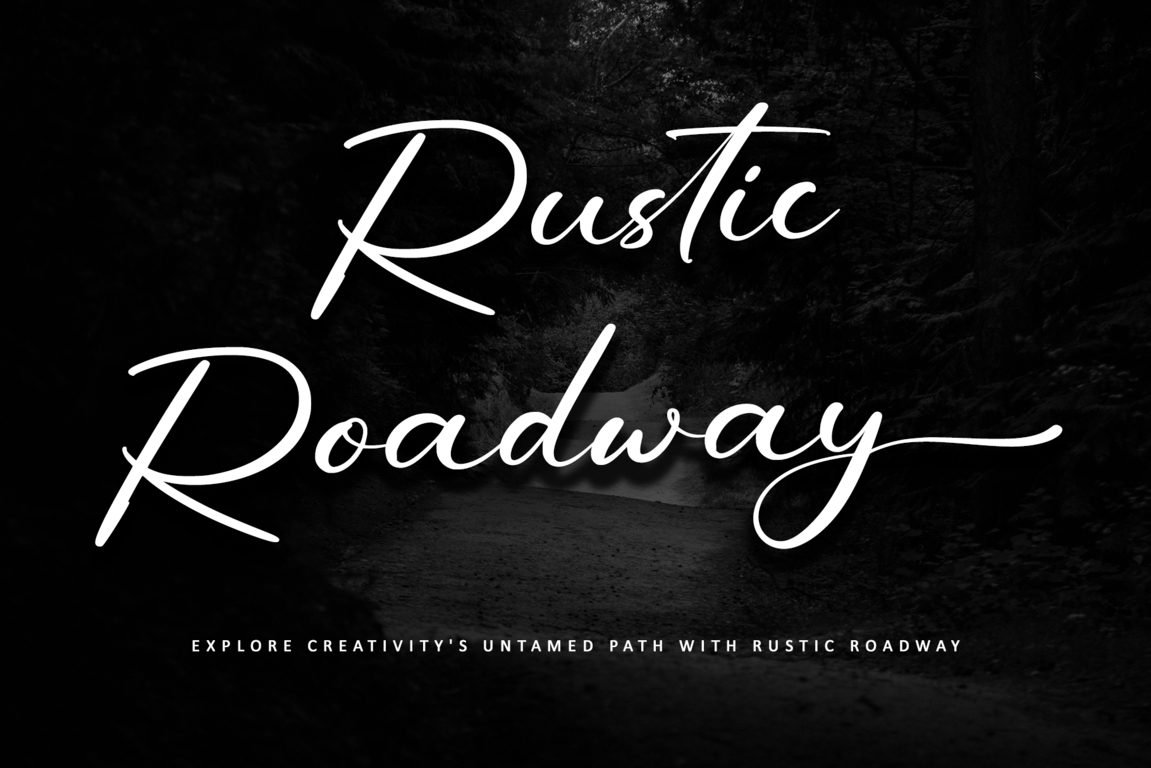
This font mixes elegance with a playful twist to bring a cozy, down-to-earth feel to your layout design by giving an extra spark of personality and style.
2. Higher Jump
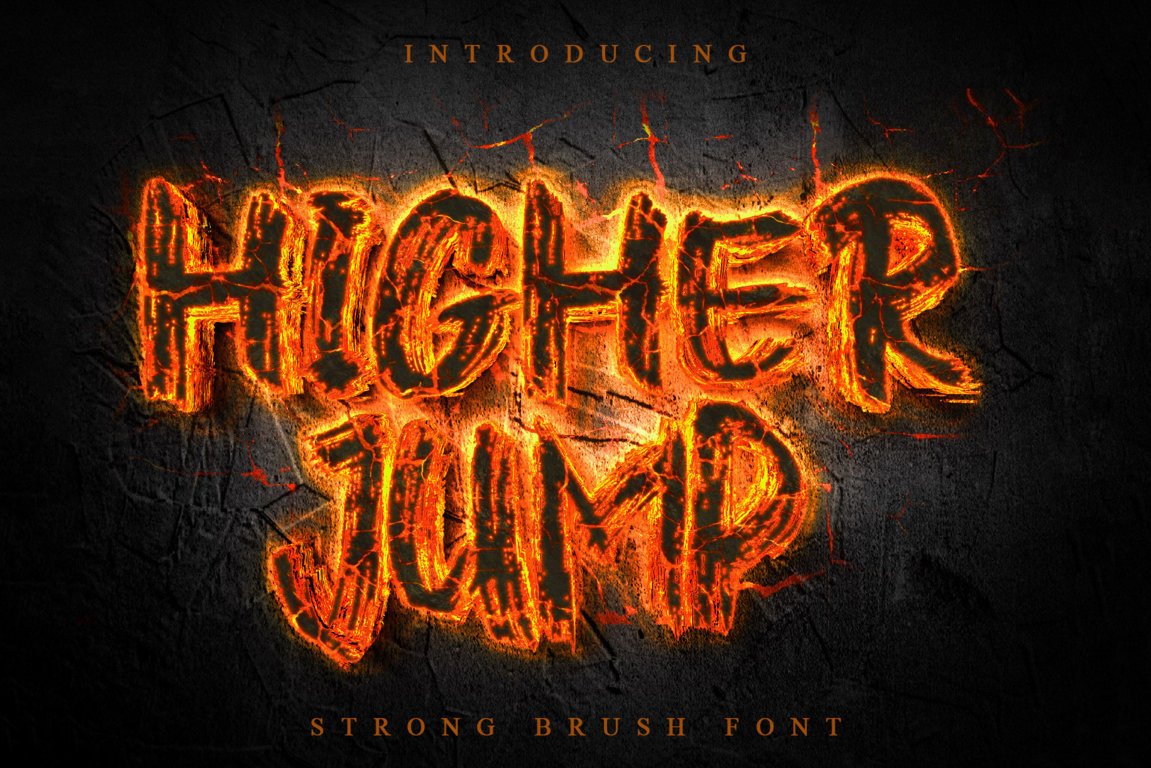
Higher Jump is a dry brush font full of personality that is perfect for making a strong first impression in magazine layouts. This font is full of character, whether you’re designing eye-catching headlines or bold section titles.
3. Eagle Horizon
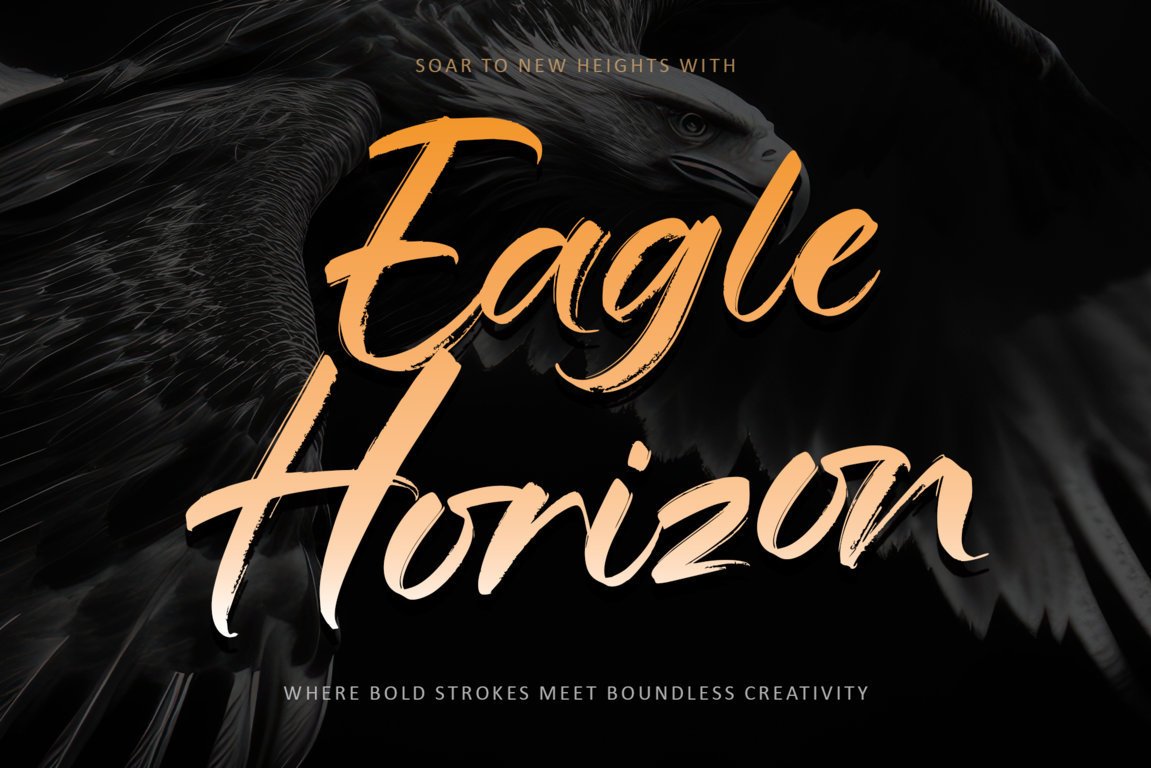
Let’s stand out with a striking headline or a stylish feature title. Featuring strong, flowing strokes and a textured feel, it brings a perfect mix of energy and elegance to your designs.
4. Laris Manis
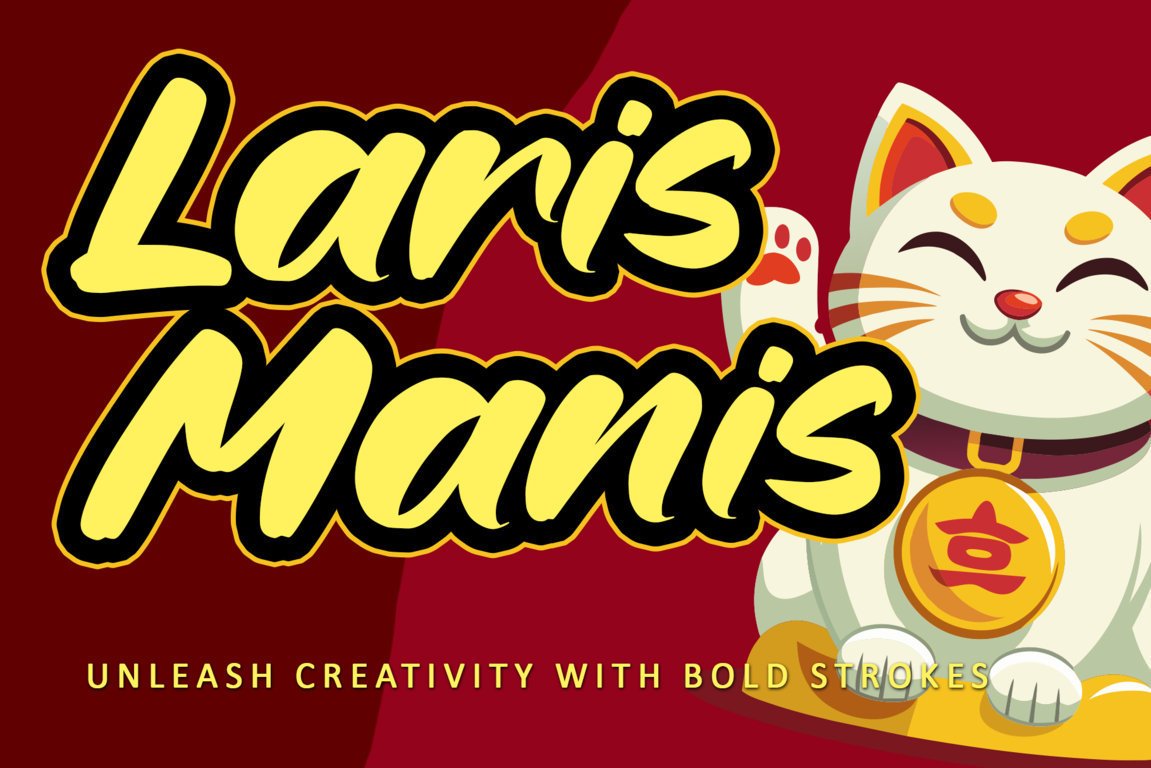
Its casual charm gives it a warm and playful feel that’s super easy to read. Whether you’re layering it over busy backgrounds or using it as a standout headline, this font stays clear, stylish, and effortlessly versatile in any layout.
5. Onestrike
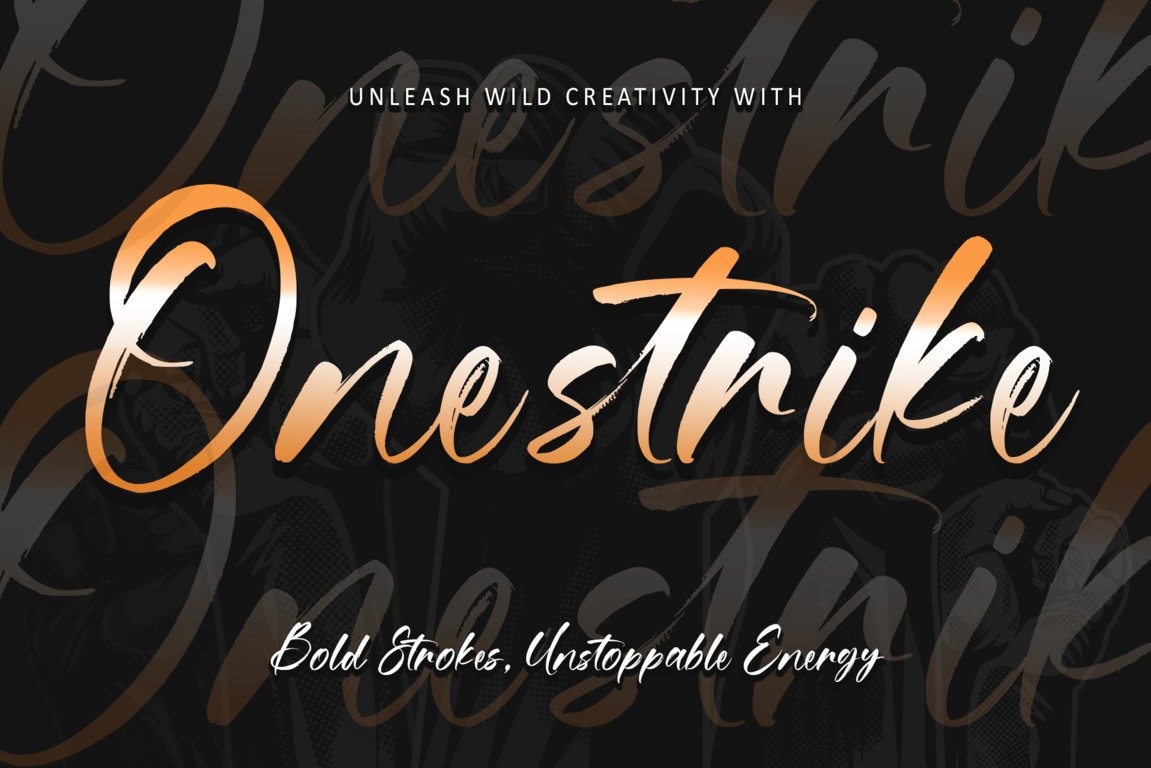
With its expressive letterforms and dynamic strokes, Onestrike captures motion, strength, and serious attitude. It’s a perfect fit for magazine fonts that are ideal for bold headlines, edgy layouts, or cover titles that leave a lasting impression.
6. Reality Stone
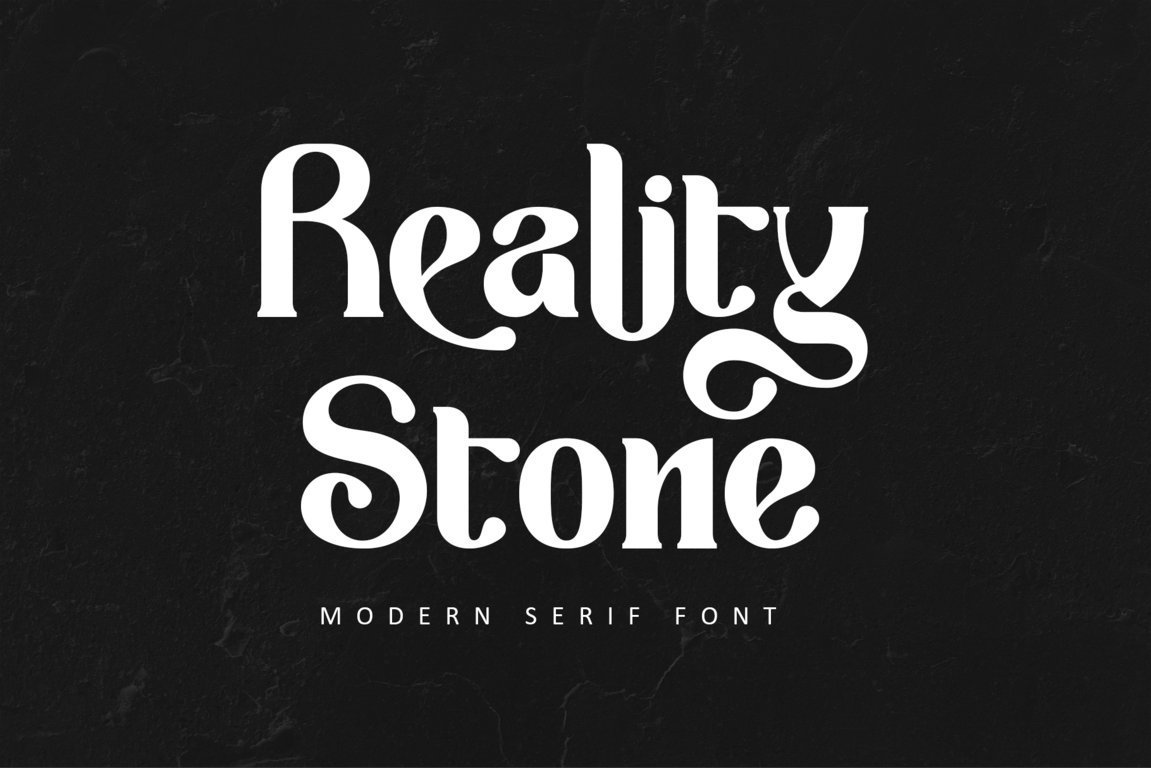
It brings strong, confident letterforms that add a bold, professional touch by keeping things sharp and stylish. With a blend of strength and elegance, it helps your headlines and pages leave a lasting impression.
7. Ramadan Blessing
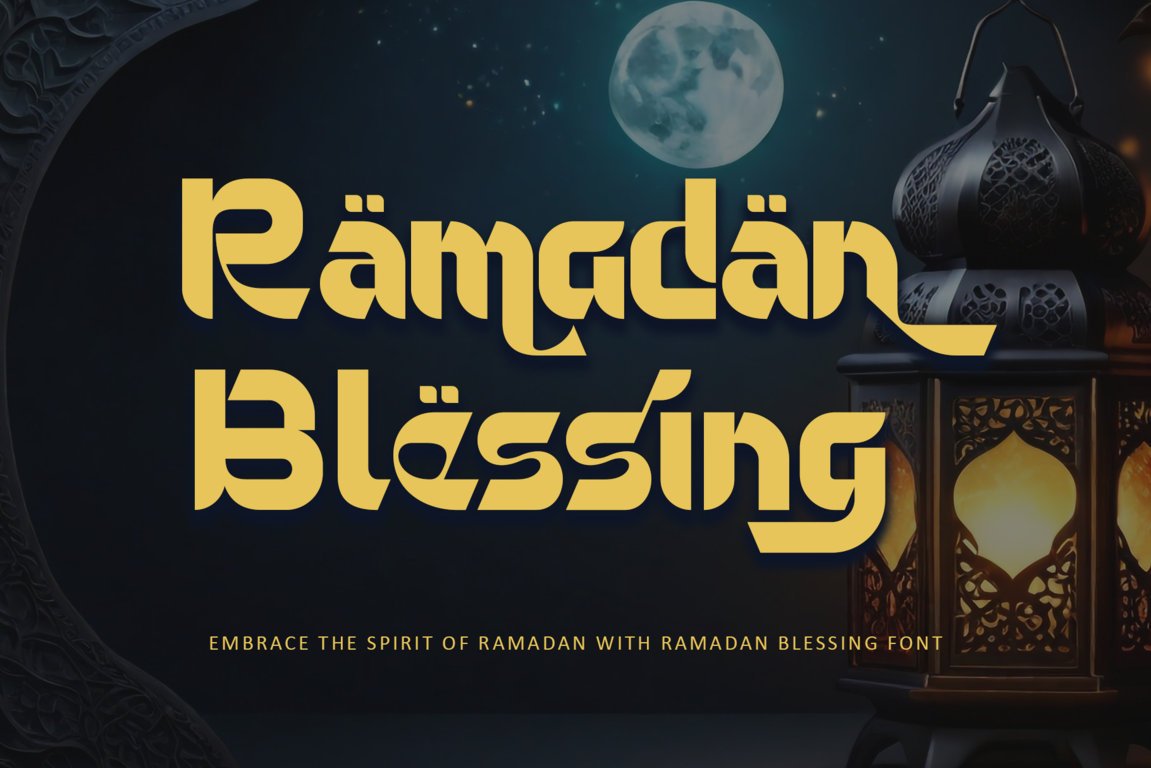
Working on an Islamic-themed project or magazine layout? Ramadan Blessing is the perfect font to bring that authentic touch. It elegantly reflects the essence of the holy month with its distinct Arabic-inspired lettering and simple serif design.
8. Batik Worldwide
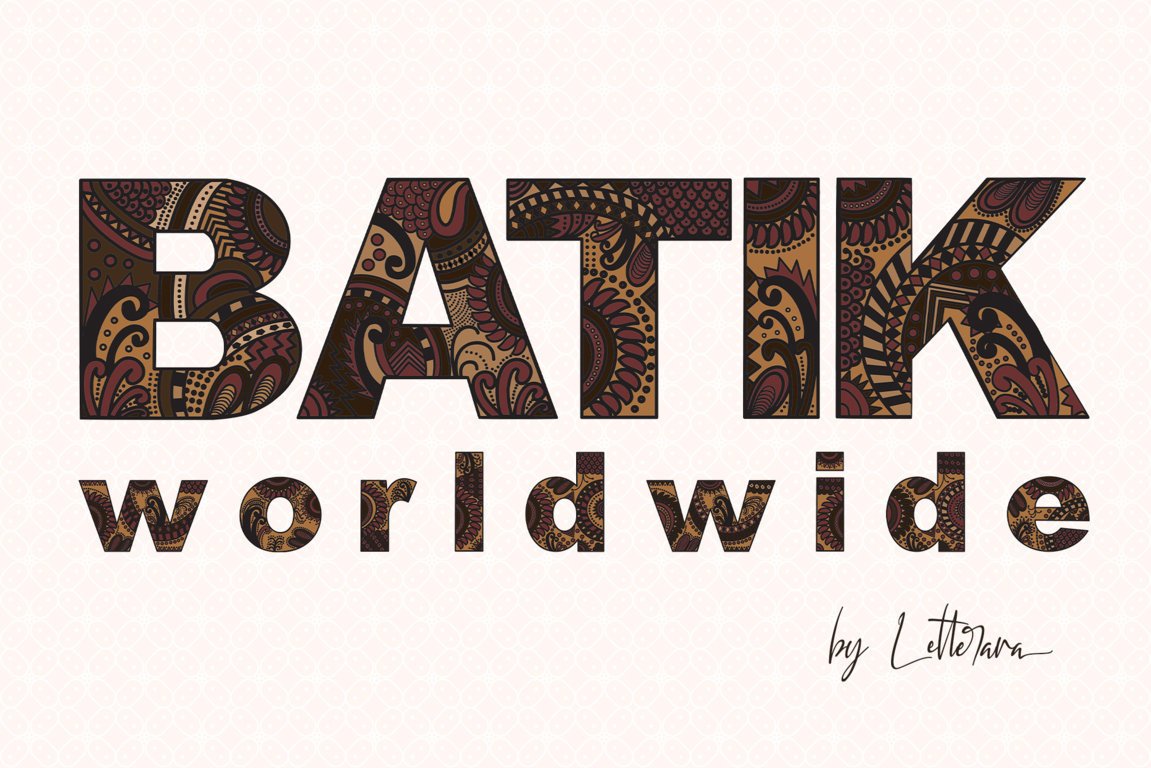
Batik Worldwide is a clean sans-serif font with a unique Batik-inspired style that adds a fresh, luxurious touch to any design. It’s easy to use and looks great in color to make headlines, covers, or stylish layouts.
9. Aishiteru
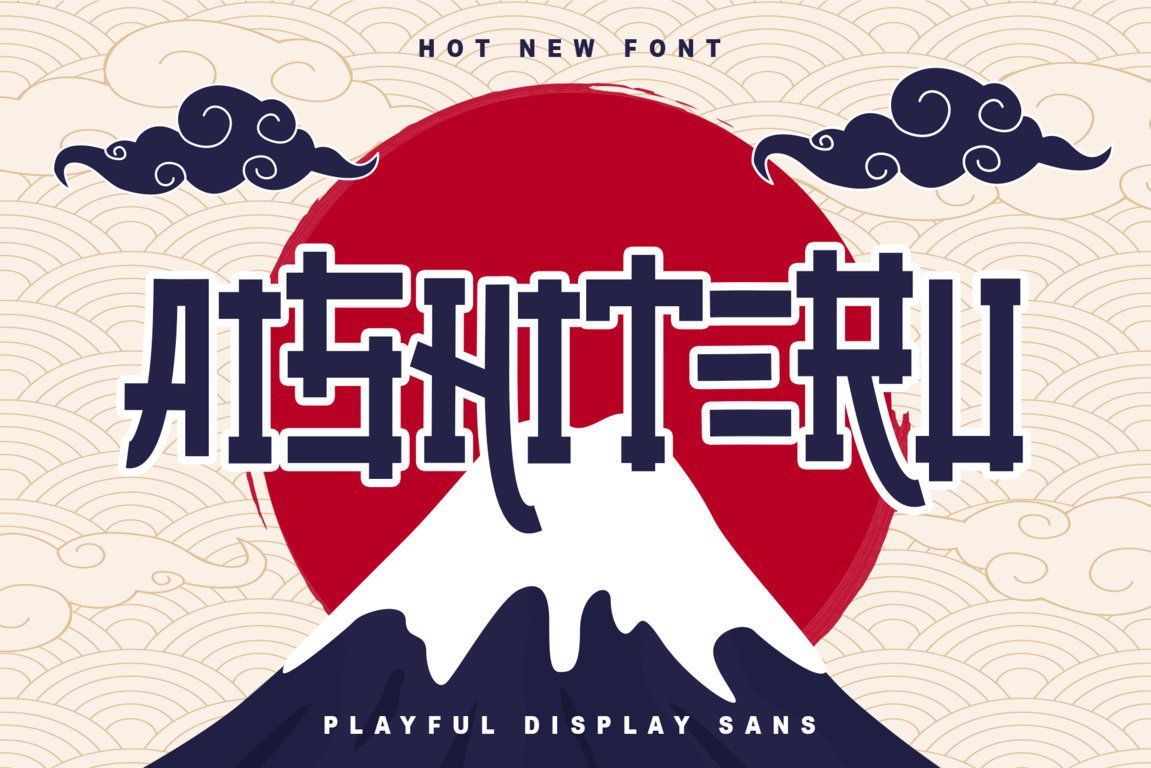
If you’re after something eye-catching, Aisiteru is one of the best magazine fonts to add a bold, modern vibe to your pages. Inspired by classic Japanese design, this display font is easy to read and packed with a strong visual impact.
10. Halloween Island
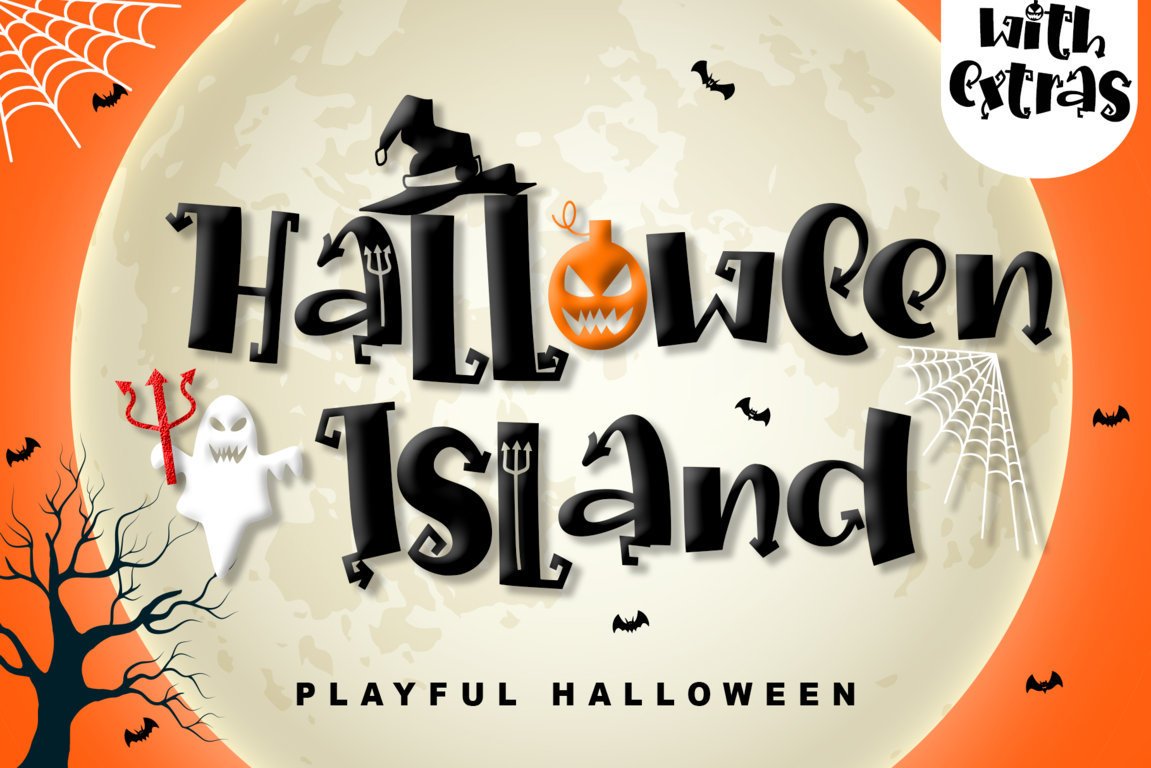
For imaginative Halloween-themed projects, Halloween Island is a striking, ornamental typeface. It comes with fun extras and playful details that make your magazines pop.
11. Easter Risen
For children’s or teen magazines, Easter Risen is a modern yet elegant typeface that is lovely, handcrafted, and fresh. Perfect for branding, headlines, and stylish layouts with a charming touch.
12. Rock Attack
Whether you’re designing editorial layouts or branding materials, Rock Attack is built to grab attention and leave a lasting impression. It offers the ideal balance of strength and sophistication with its daring design and sophisticated edge.
13. Aestera
Aestera easily stands out as one of the best fonts for magazine projects that aim to inspire and impress. It offers a versatile range of styles, making it great for editorial layouts themed around events, music, or historical places.
14. Qinferly
With its powerful and sophisticated serif font and unique character shapes, Qinferly elevates any layout. Its clean, readable style makes it perfect for skincare or interior collection pages in a magazine.
15. Blacker Gothic
Grab attention and bring serious style with Blacker Gothic. This bold blackletter font blends classic vibes with a modern twist to give your magazine layouts a strong and edgy look that won’t go unnoticed.
16. Queenlery
Whether you’re working on headlines or body text, Queenlery brings a fresh vibe with endless styling possibilities. This typeface instantly gives any design a sophisticated, contemporary vibe with its exquisite curves and delicate, wavy touch.
Why the Right Fonts Matter for Your Design